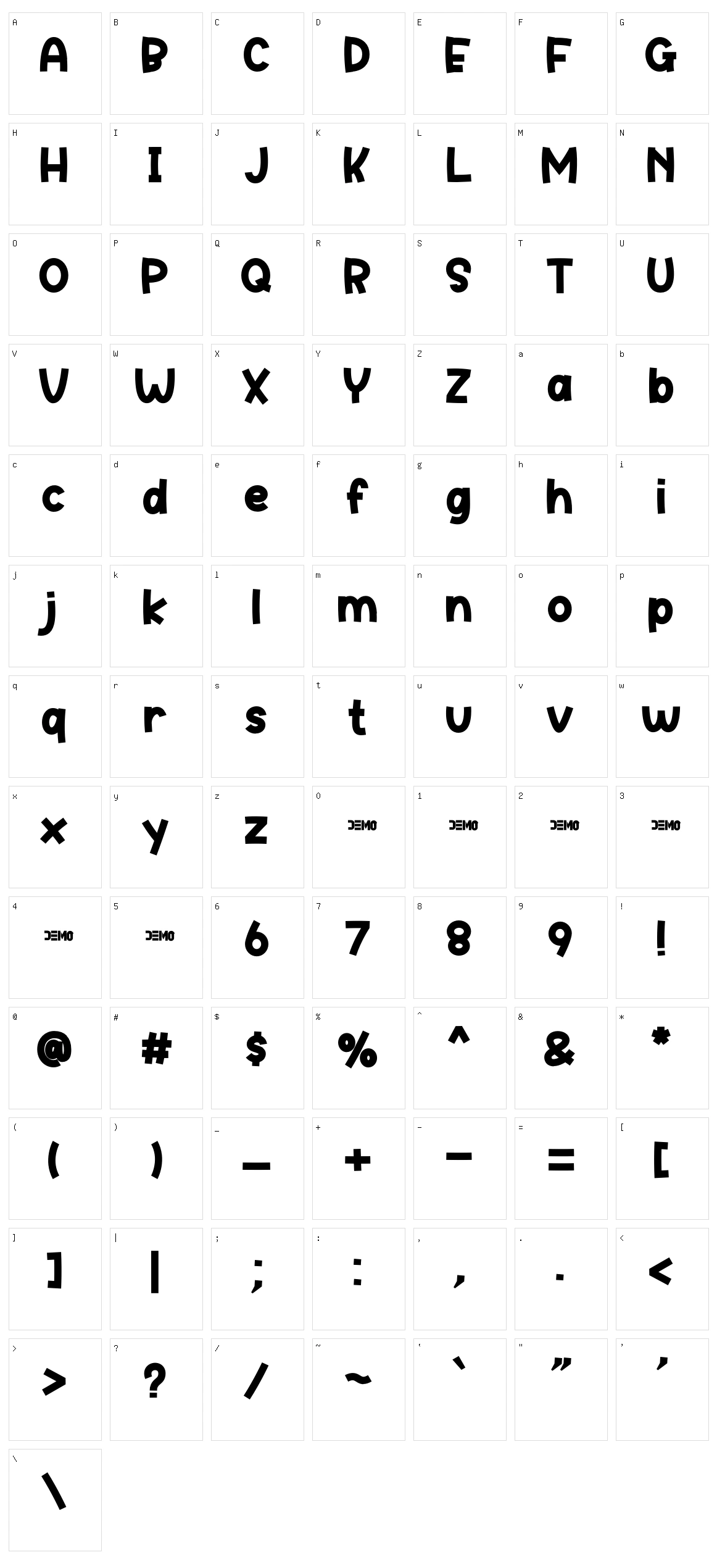
The free font Baby's Dream is carefully designed by Pria Admaja, showcasing a thoughtful balance of creativity and usability and falls under the Cartoon font style. When you download the ZIP file, it contains only 10.15 KB of font files, making it lightweight and quick to download. Please review the license details below to understand permitted usage and distribution rights. If license information is not available, we recommend using this font for personal projects only or contacting the author directly for commercial usage permissions.